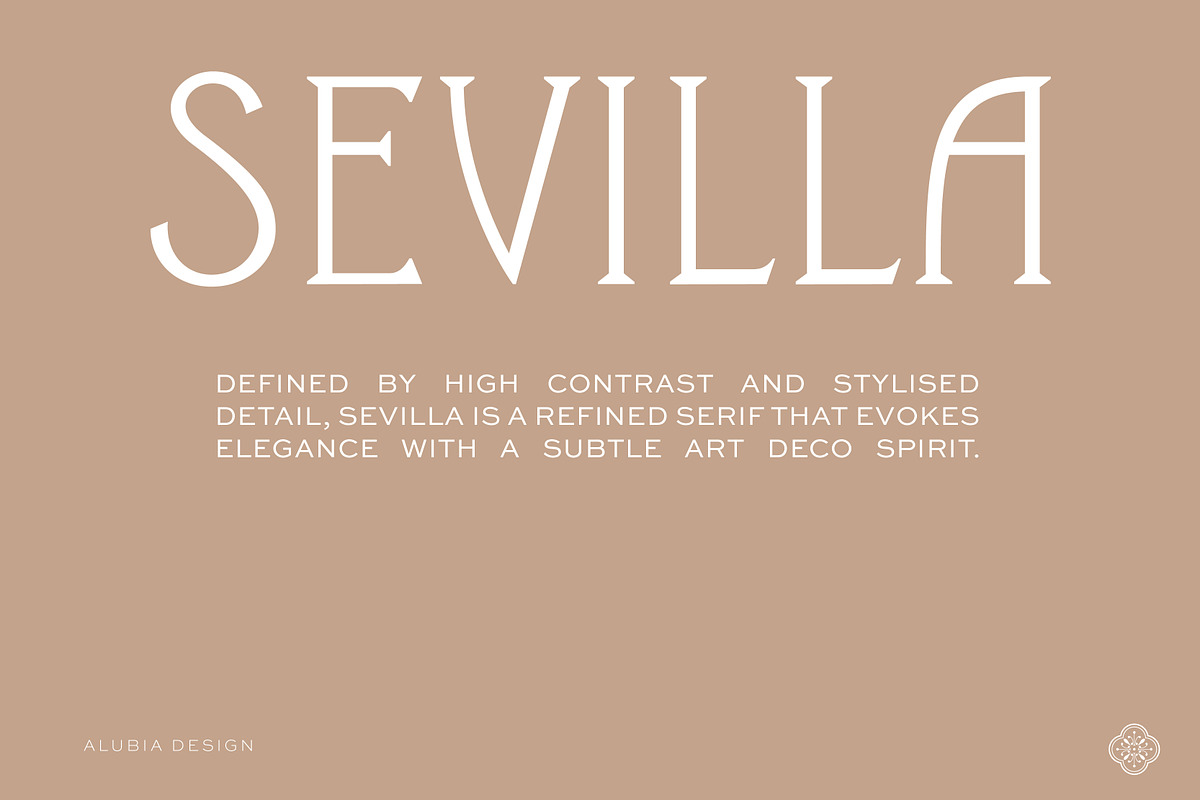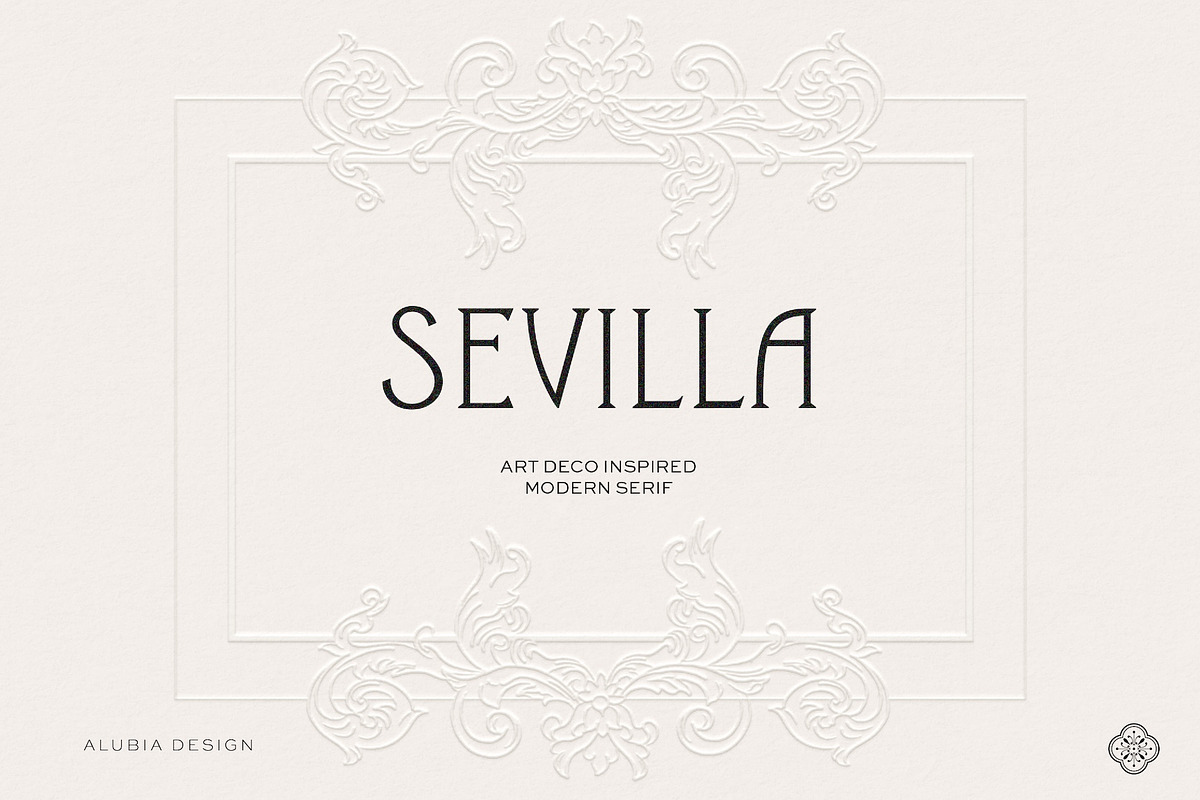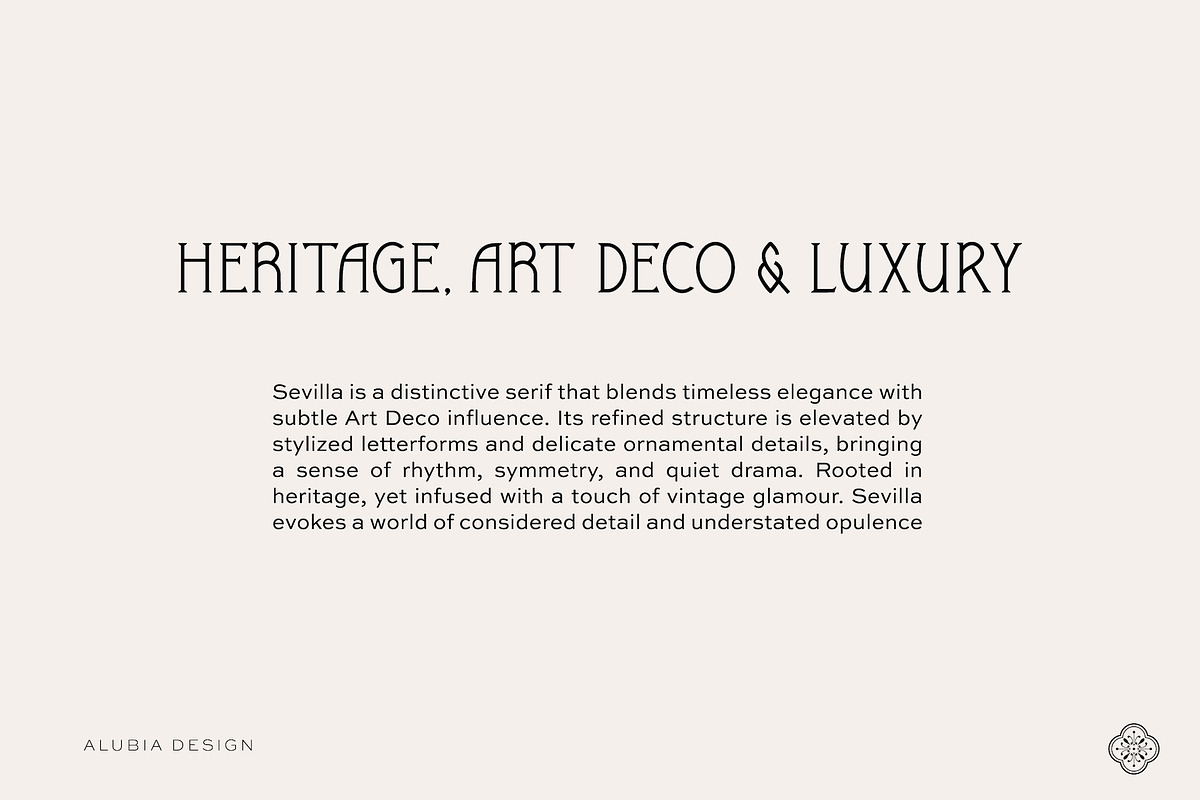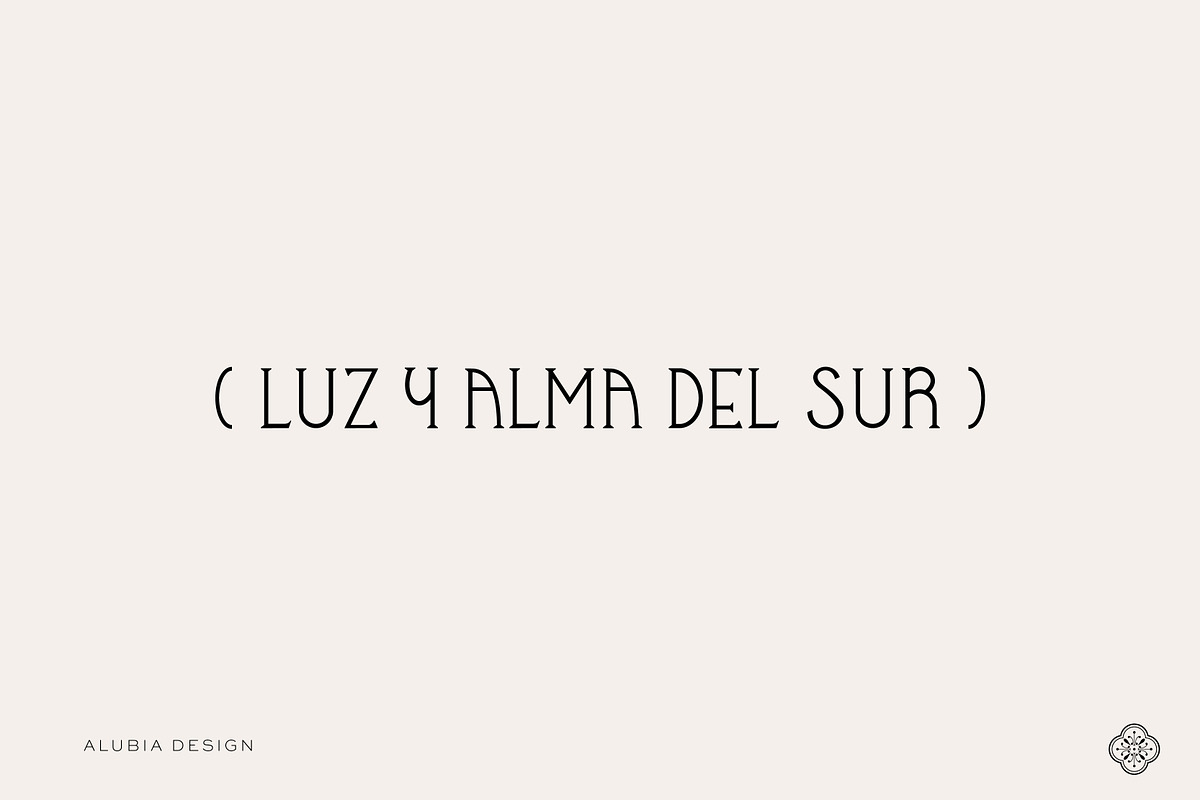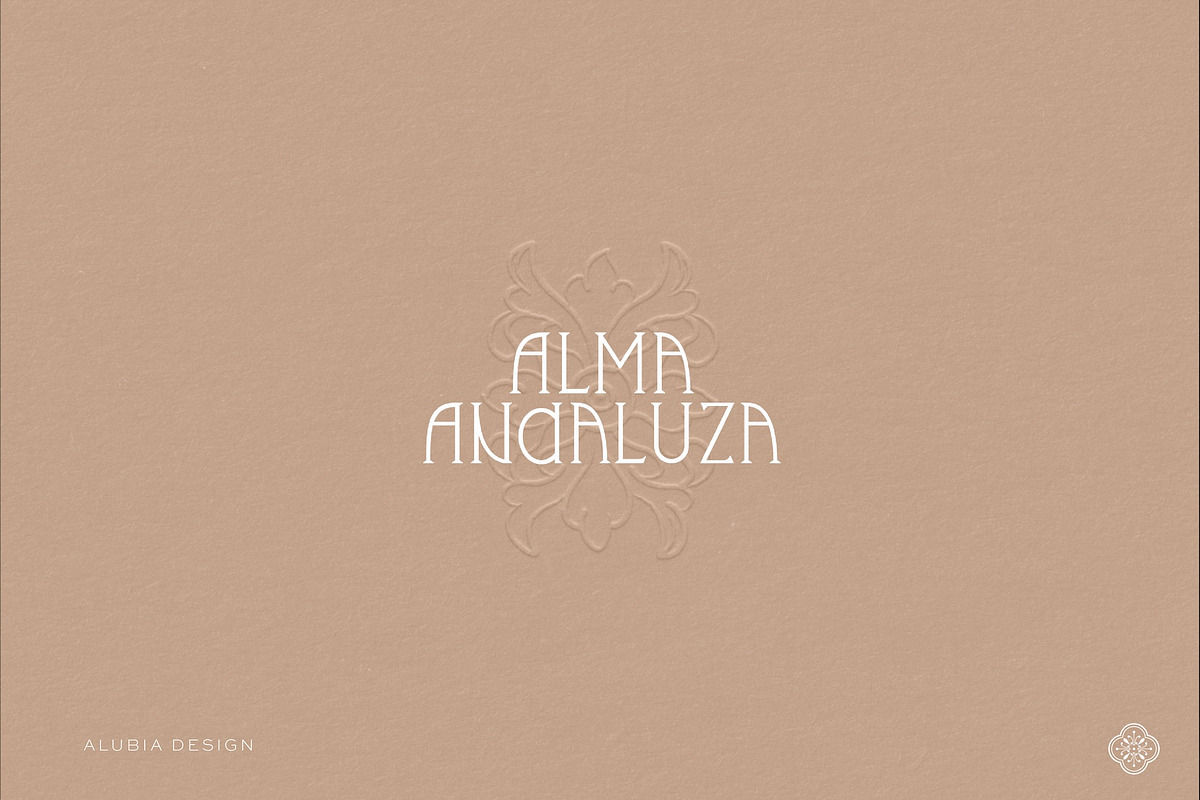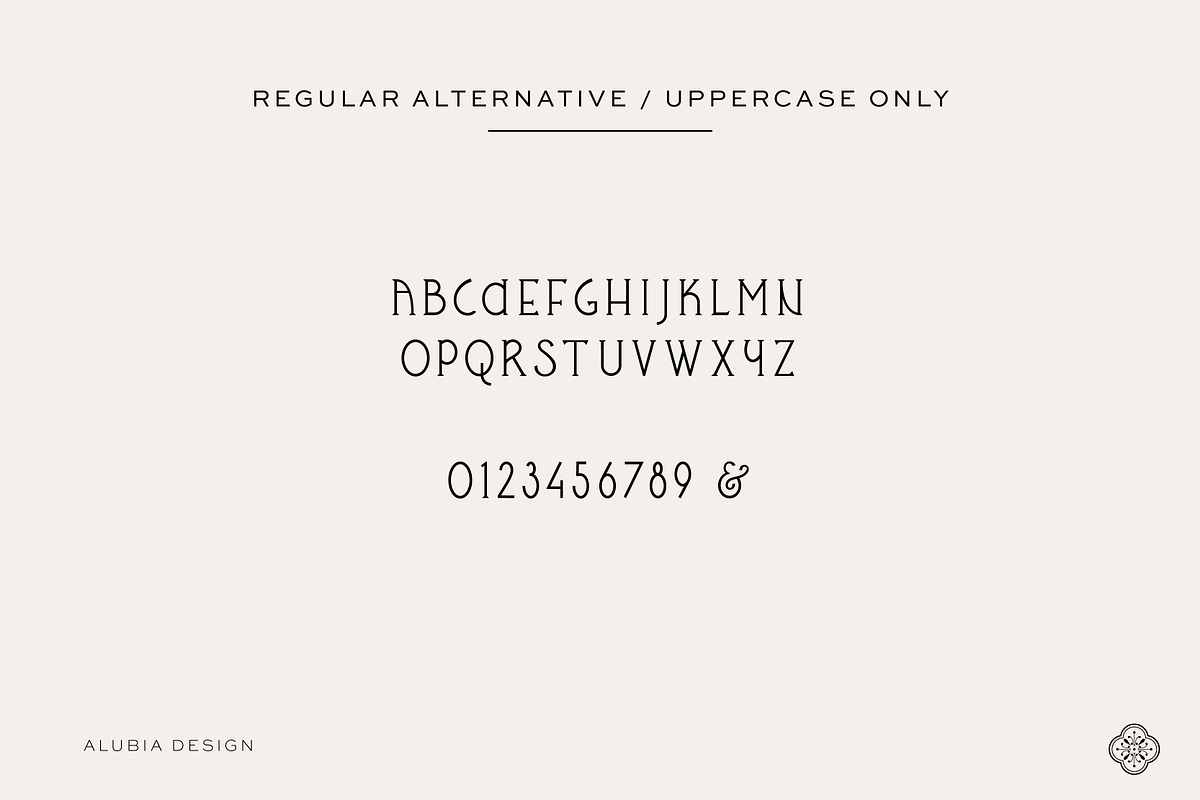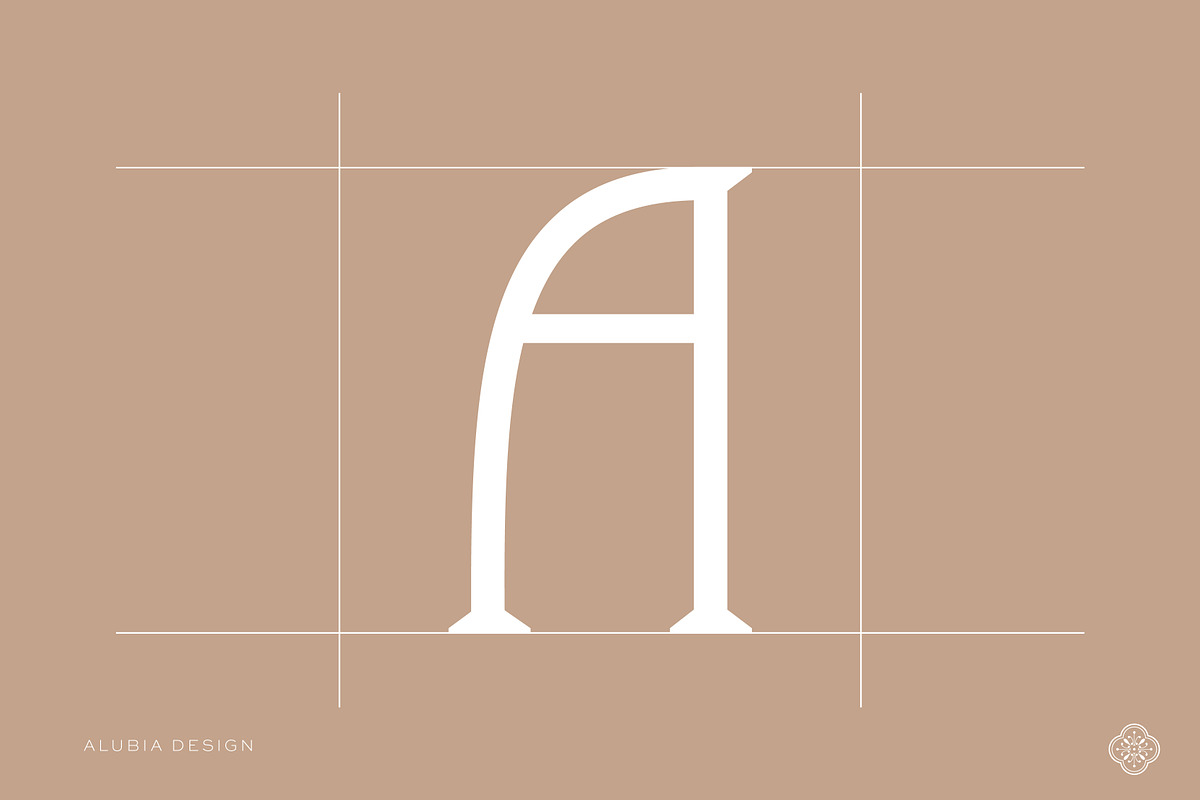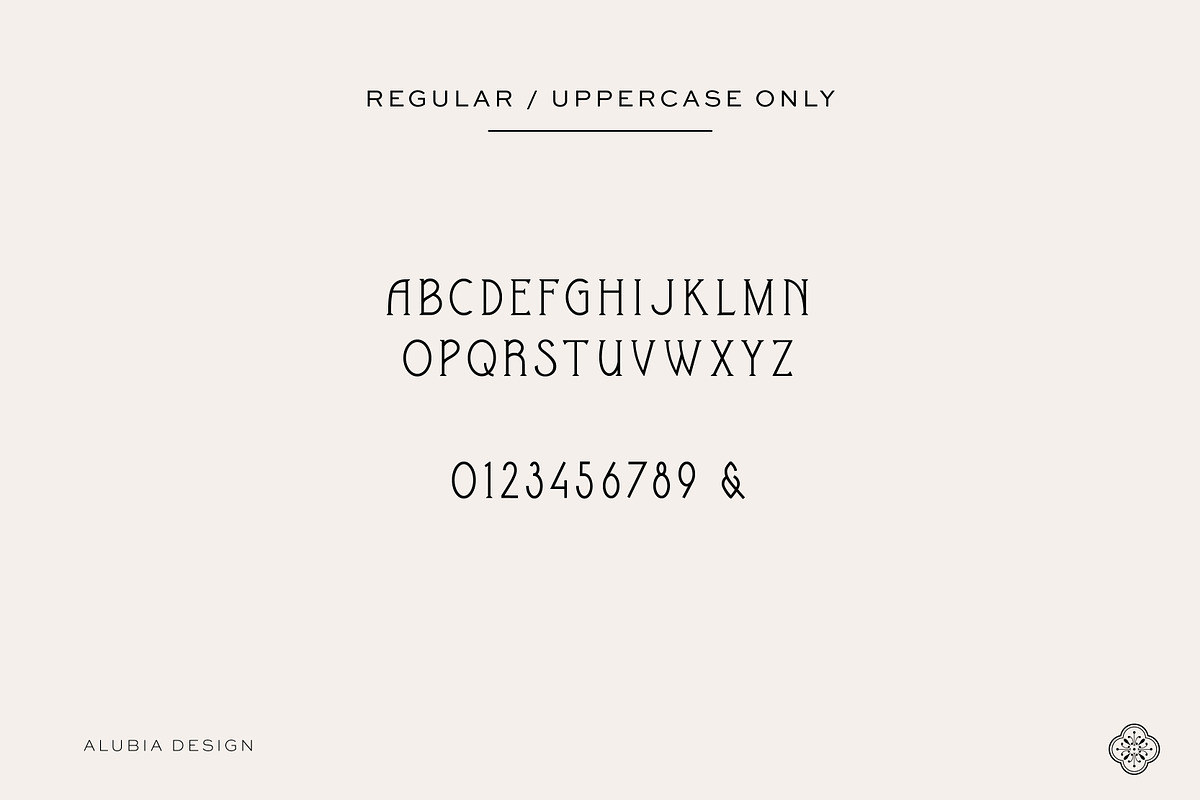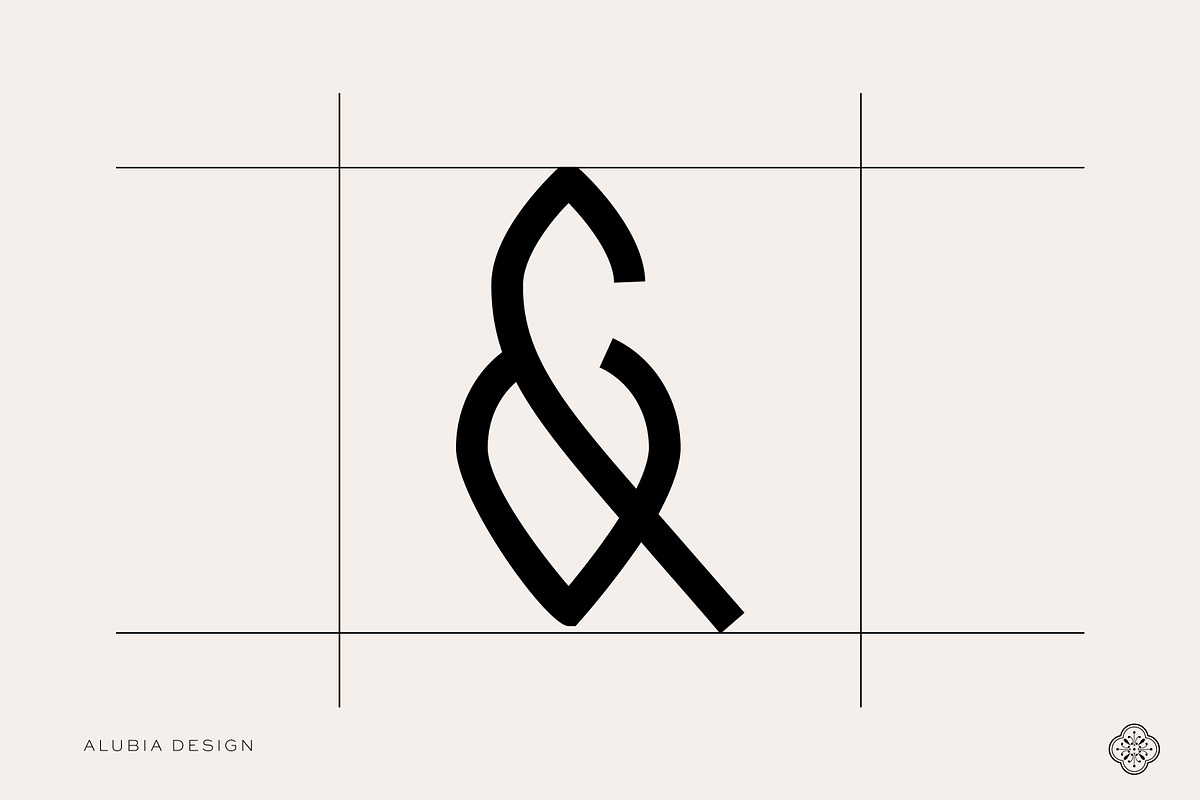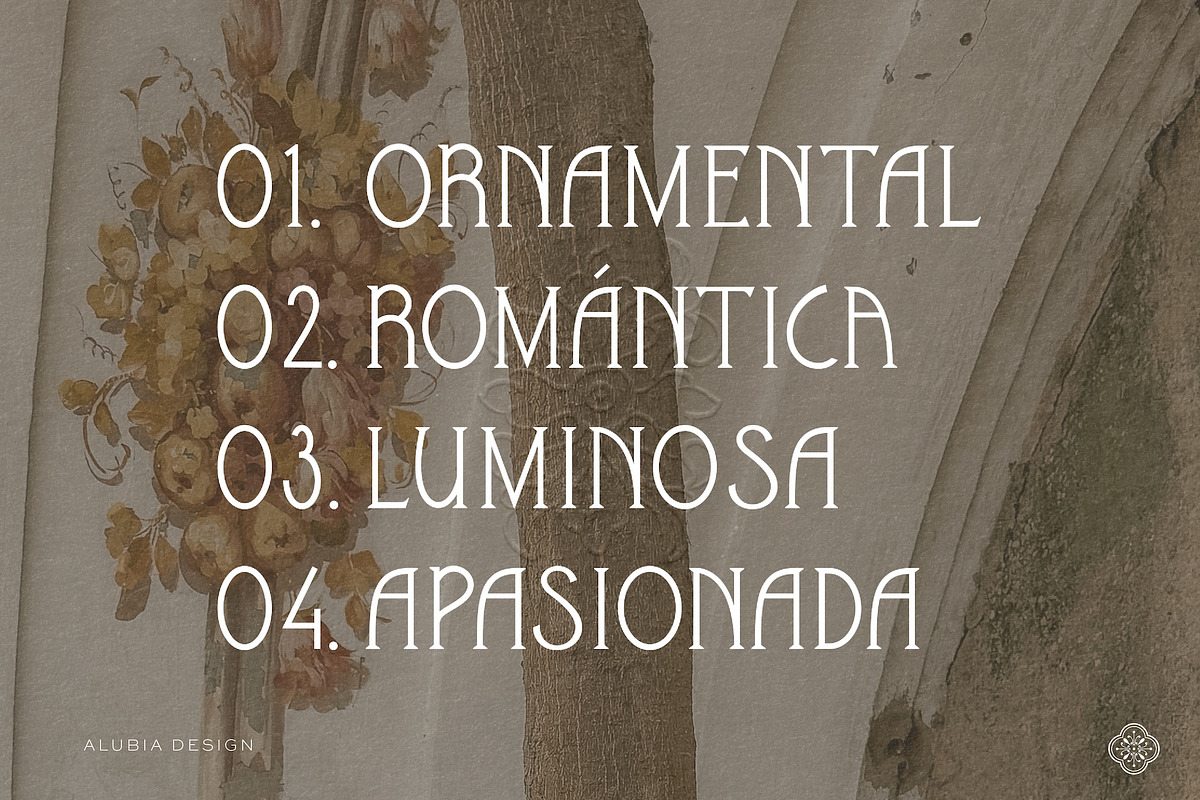
Sevilla - Art Deco Serif
Introducing ‘SEVILLA’ - a refined serif defined by contrast and distinctive detail. It blends timeless heritage with subtle Art Deco influence, creating an elegant and expressive presence with a distinctly luxurious finish.